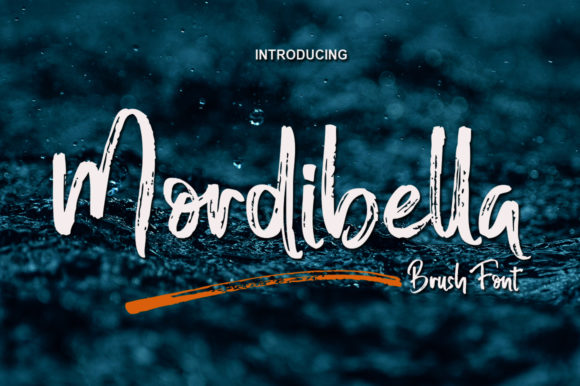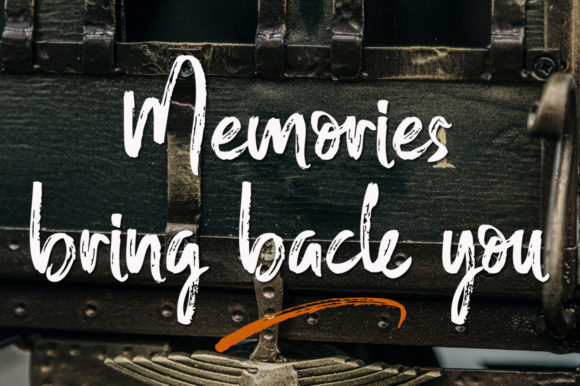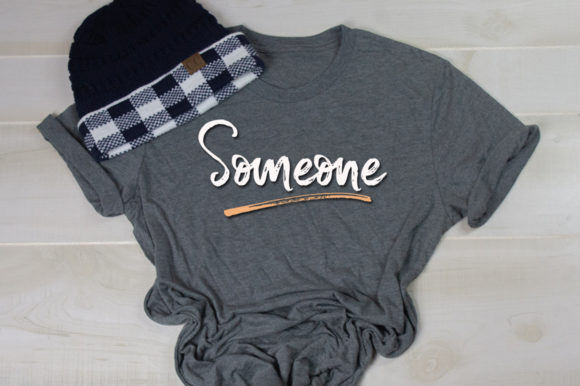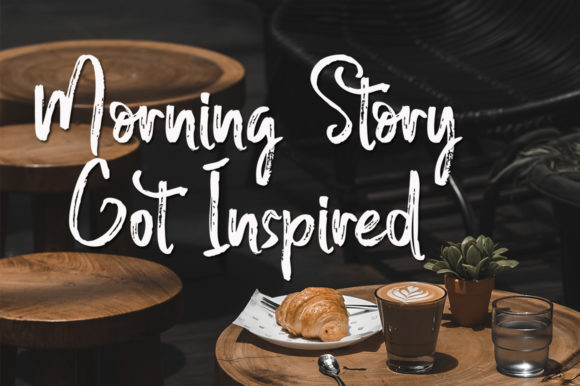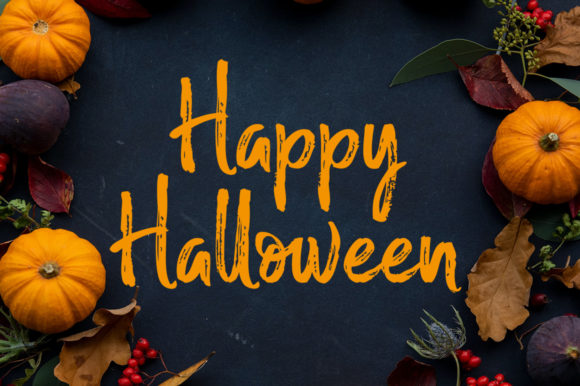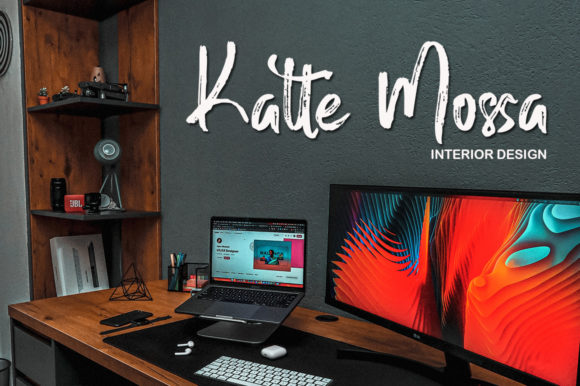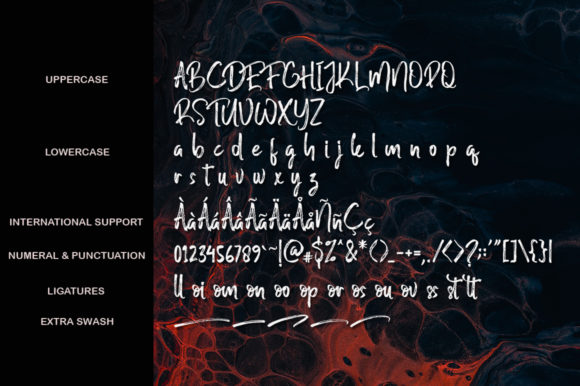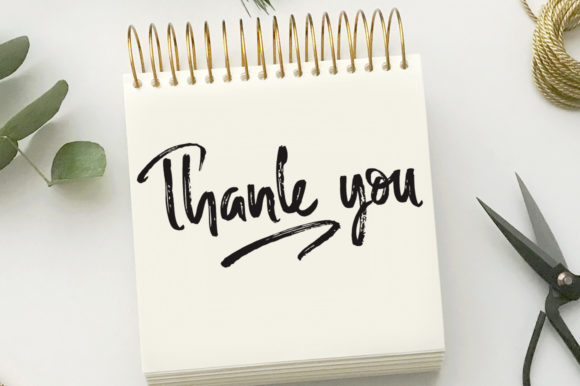
Mordibella Font
About Mordibella Font
Introducing Mordibella: A Modern Brush Font for Versatile Designs
Meet Mordibella, the new modern brush font that brings a fresh and dynamic vibe to your design projects. This font is incredibly adaptable, making it suitable for a wide variety of creative endeavors, from branding and product packaging to invitations, quotes, t-shirts, labels, posters, logos, and more.
With its bold and expressive brush strokes, Mordibella exudes confidence and creativity. Its modern style adds a contemporary touch to your designs, making them stand out with a sense of flair and sophistication.
Mordibella is perfect for branding projects, where it can leave a lasting impression on your audience. Whether you’re creating a logo for a startup, revamping an existing brand identity, or designing product packaging, this font elevates your visuals and communicates a strong sense of brand personality.
Invitations become even more captivating with Mordibella, as its brush-like strokes add an element of uniqueness and excitement to your event announcements. From weddings to parties and special occasions, this font sets the tone for a memorable and joyous celebration.
Quotes and motivational messages take on a whole new dimension with Mordibella. Its bold and expressive nature helps convey the message with passion and impact, leaving a lasting impression on your audience.
For the fashion-forward, Mordibella enhances t-shirt designs, making them more stylish and eye-catching. Whether it’s a slogan, a trendy graphic, or a playful illustration, this font adds an element of coolness to your apparel.
Labels and posters benefit from Mordibella’s versatile style, allowing you to create attention-grabbing designs that resonate with your target audience. The font’s brush strokes inject energy and personality into your visual communications, making them stand out from the crowd.
Finally, Mordibella empowers you to create a memorable and distinctive logo that represents your brand’s identity with flair and creativity. Its modern brush style adds a touch of artistic charm to your business identity, leaving a lasting impression on customers.
In conclusion, Mordibella is a new modern brush font that brings adaptability and creativity to your design projects. Its bold and expressive strokes make it suitable for various purposes, from branding and invitations to quotes, t-shirts, labels, posters, and logos. Embrace the versatility of Mordibella and unlock its potential to create captivating and memorable designs.